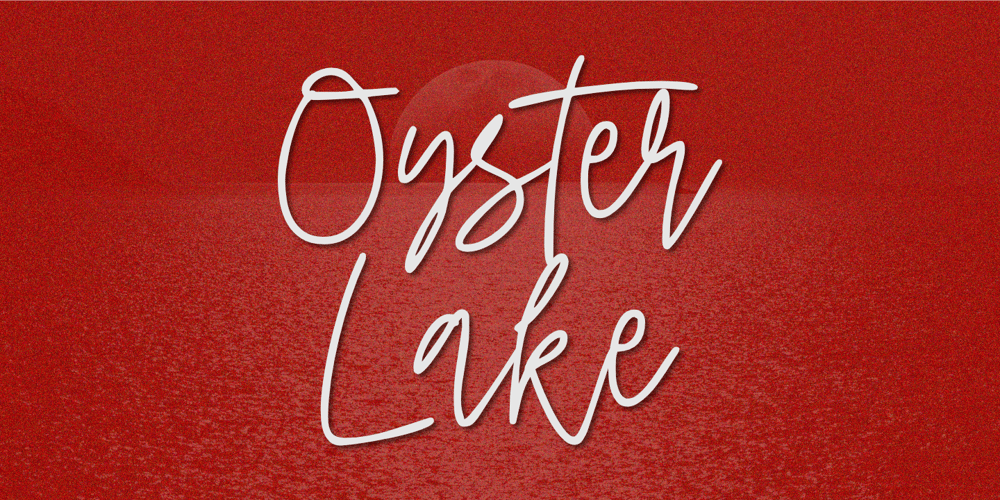
Oyster Lake
Oyster Lake font
Oyster Lake Font Family was designed by Nurul Hidayani and published by Olivetype. Oyster Lake contains 1 styles and family package options. Oyster Lake is an elegant signature script font. This versatile script font has a wide spectrum of applications ranging from greeting cards, product branding to headlines and more.So what’s included : Basic Latin A-Z & a-z Numbers, symbols, and punctuations Ligatures Accented Characters : ÀÁÂÃÄÅÆÇÈÉÊËÌÍÎÏÑÒÓÔÕÖØŒŠÙÚÛÜŸÝŽàáâãäåæçèéêëìíîïñòóôõöøœšùúûüýÿžß Thank you